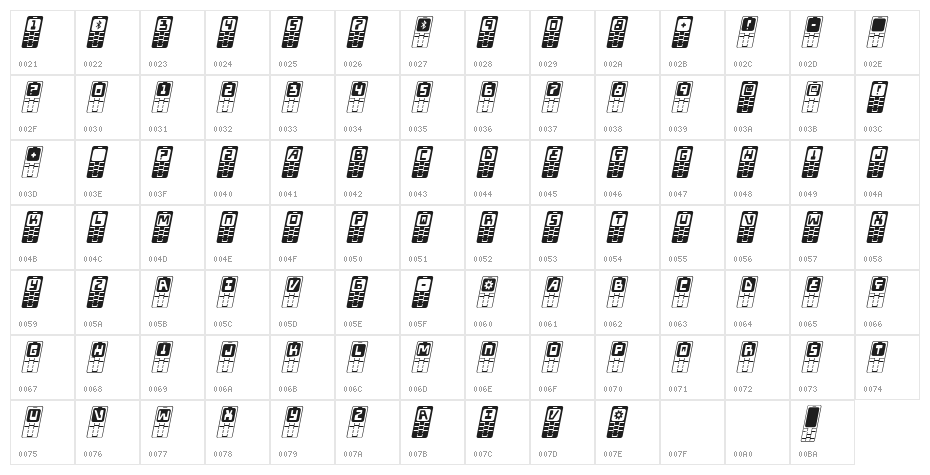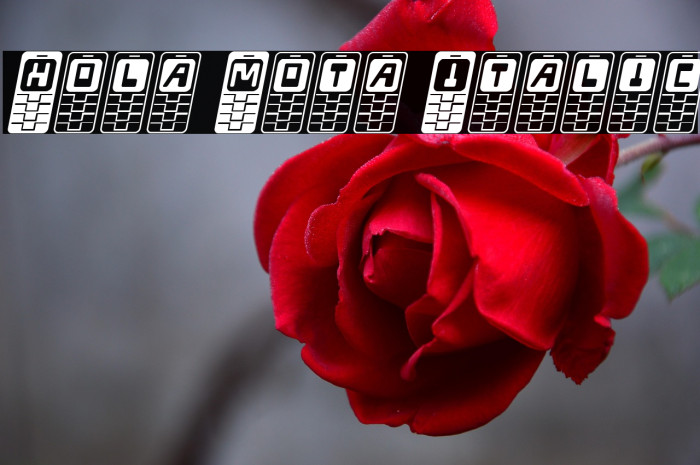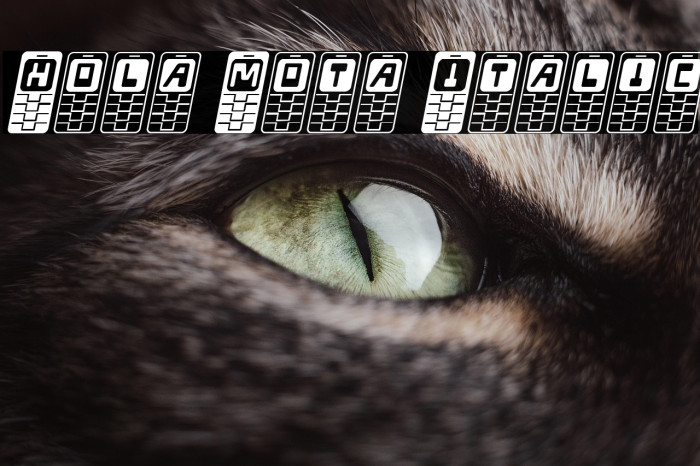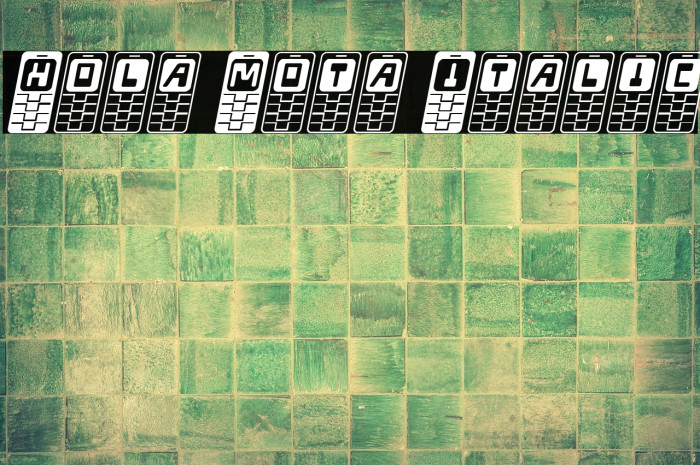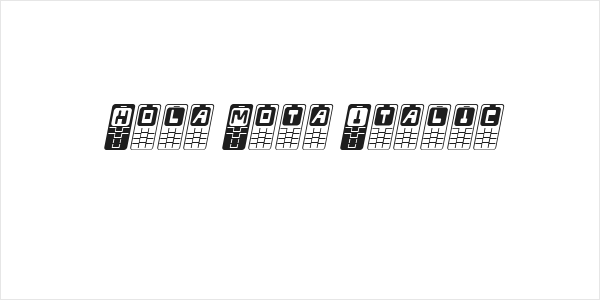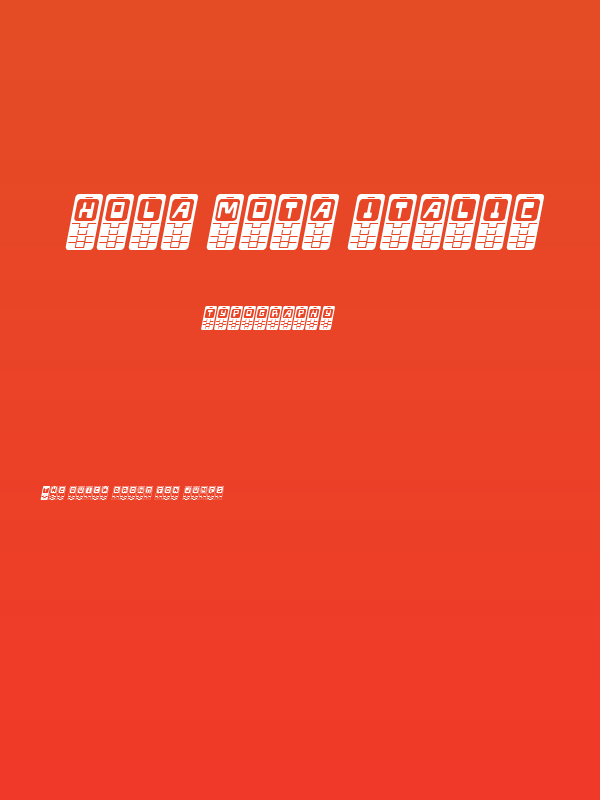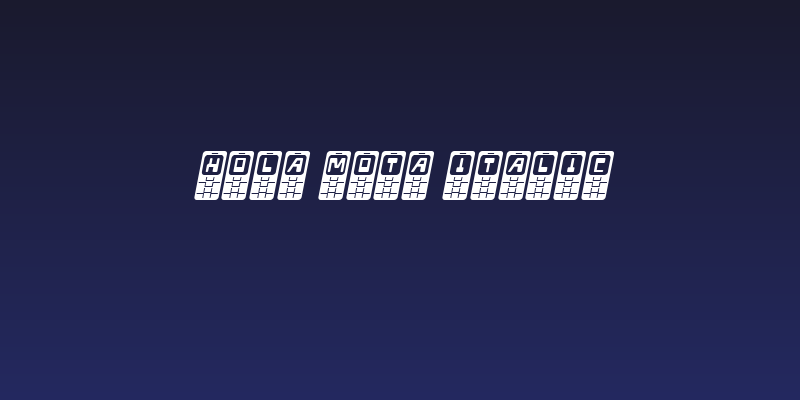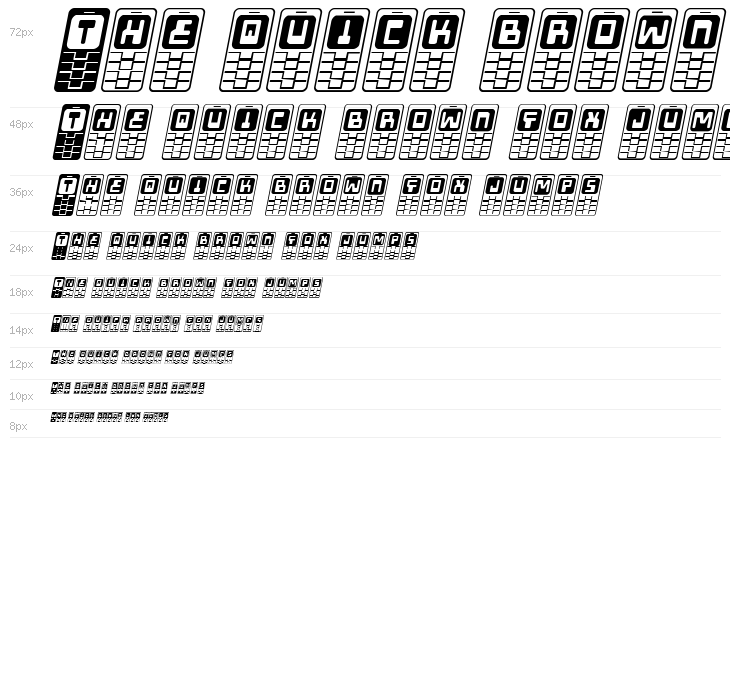
Hola Mota Italic Font
Hola Mota Italic Description
This font features a bold, modern design with a distinct digital aesthetic. Each character is enclosed within a rectangular shape, resembling the keys of a mobile phone or a digital device. The letters and numbers are stylized with a futuristic flair, incorporating angular lines and geometric shapes. The font's unique style is accentuated by its italic slant, adding a dynamic and forward-leaning appearance. The use of thick outlines around each character enhances its visibility and impact, making it suitable for eye-catching designs. The overall look is both playful and tech-inspired, ideal for projects that require a contemporary and innovative touch.